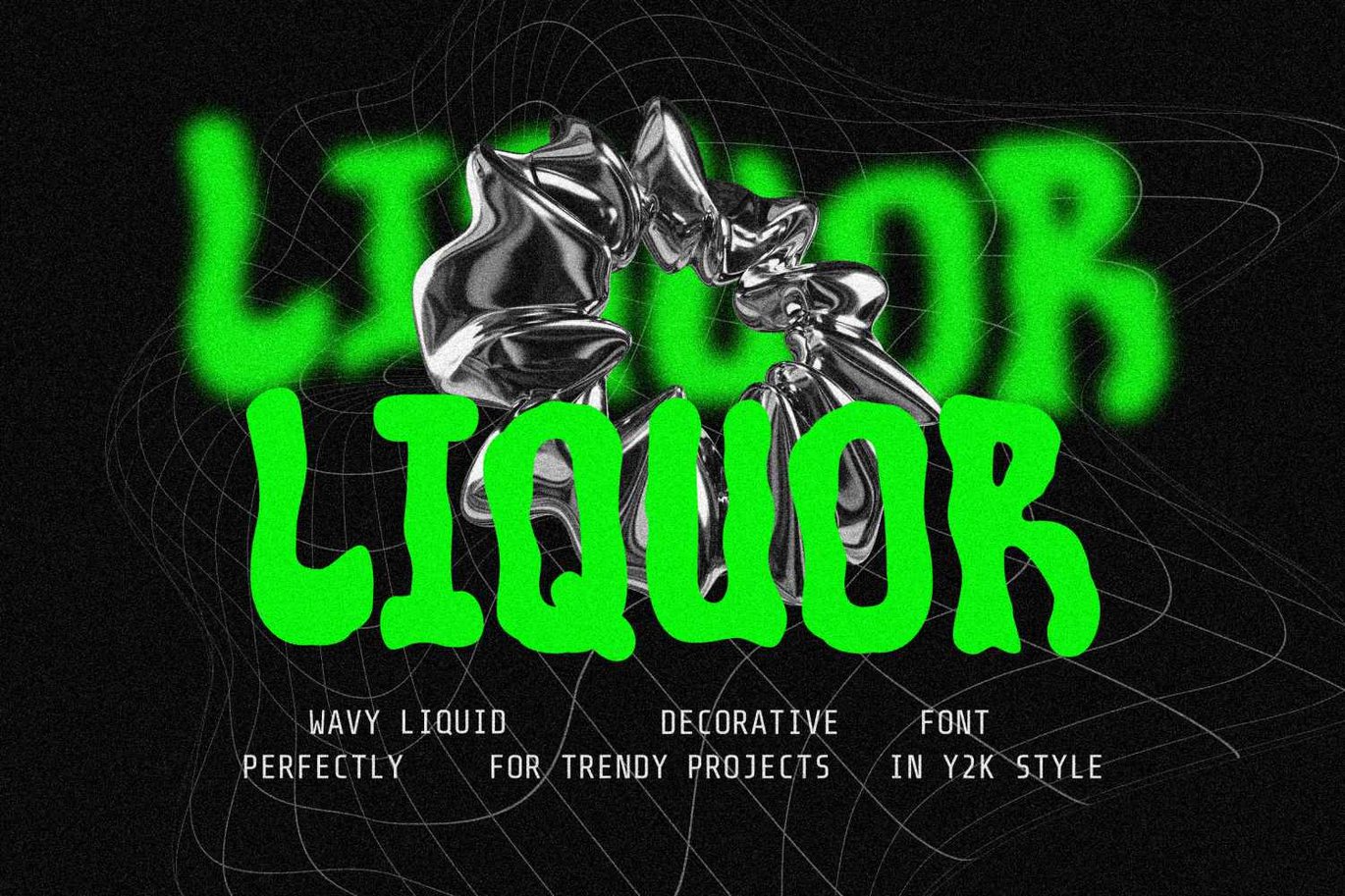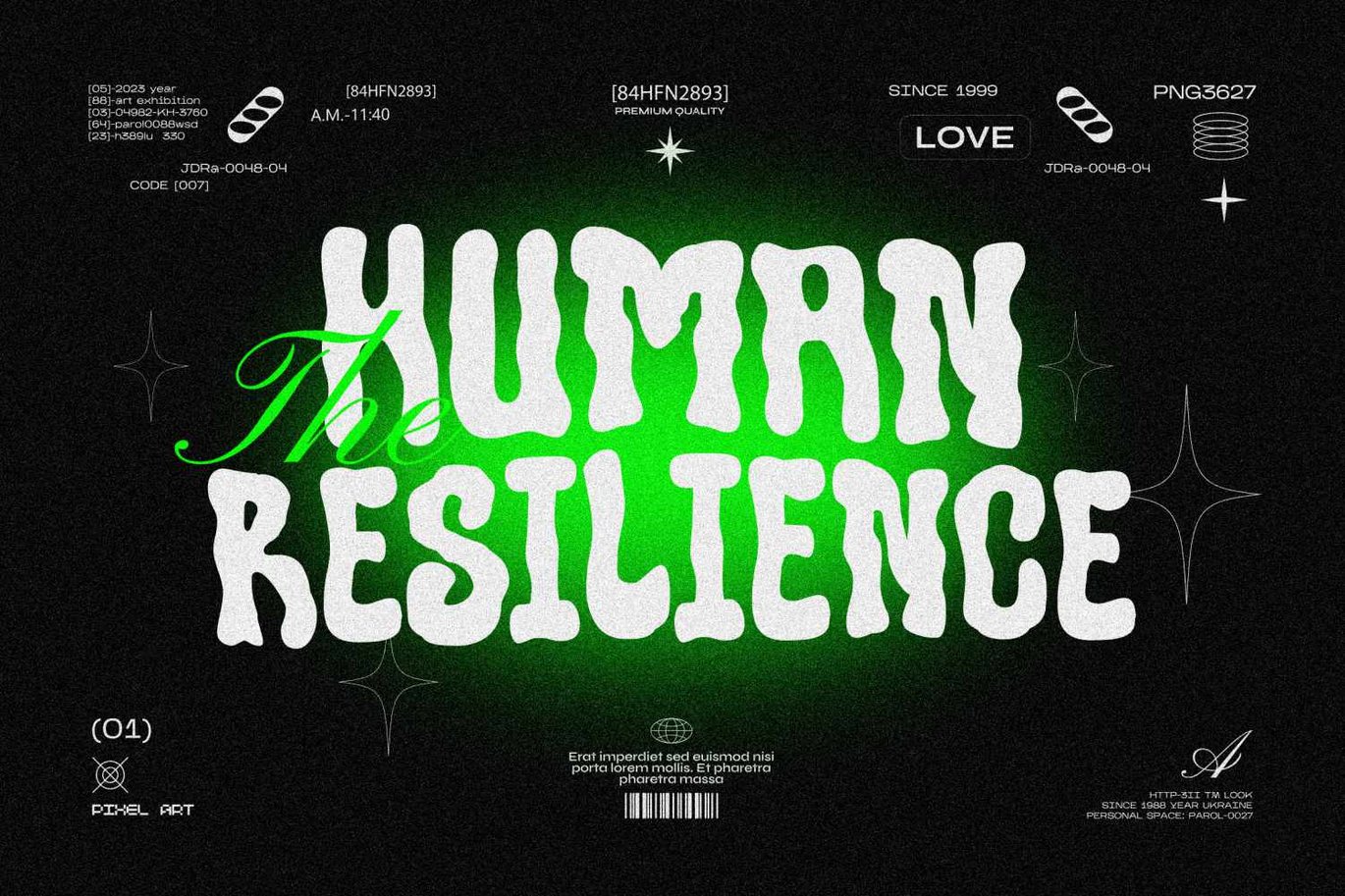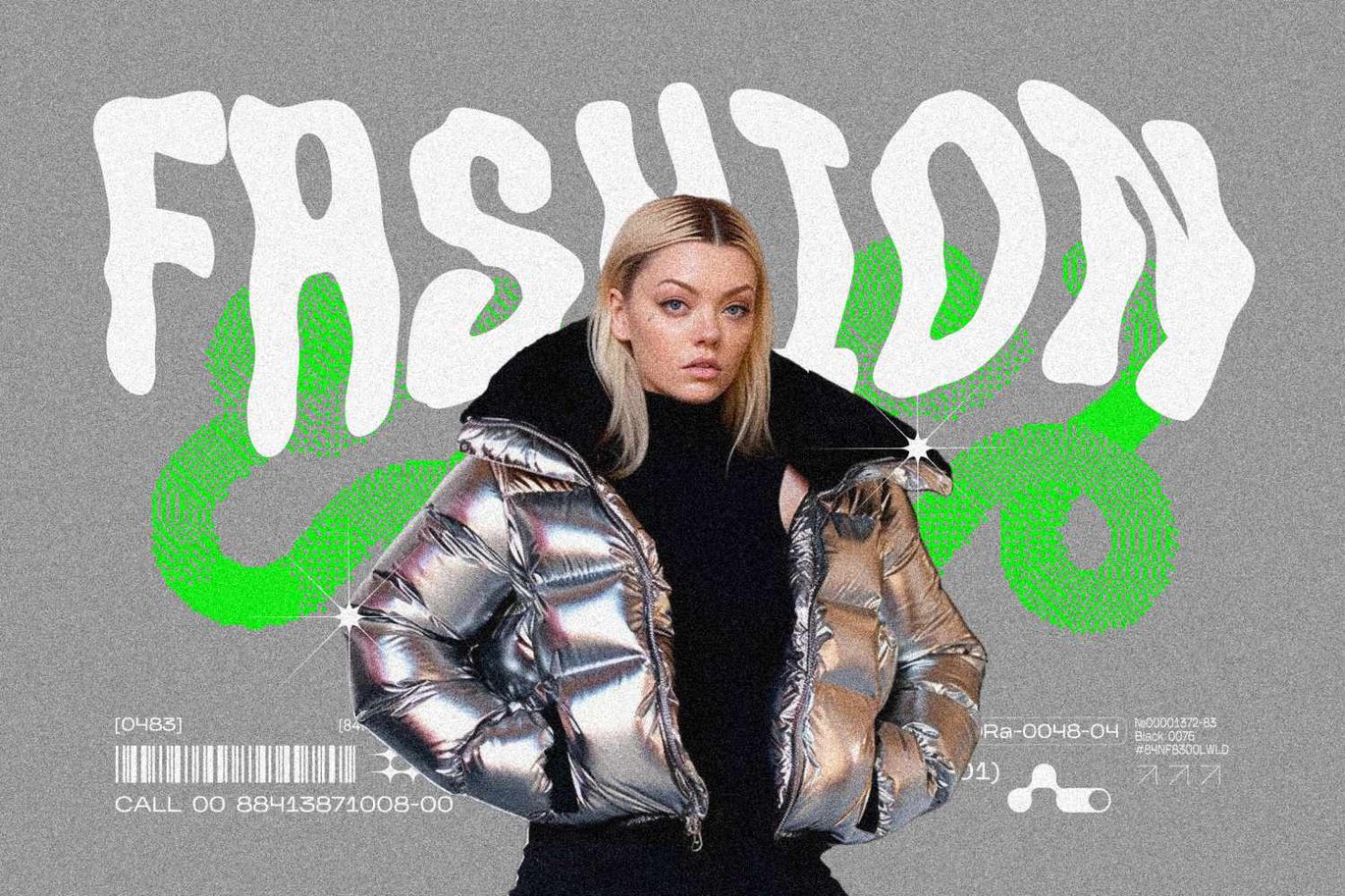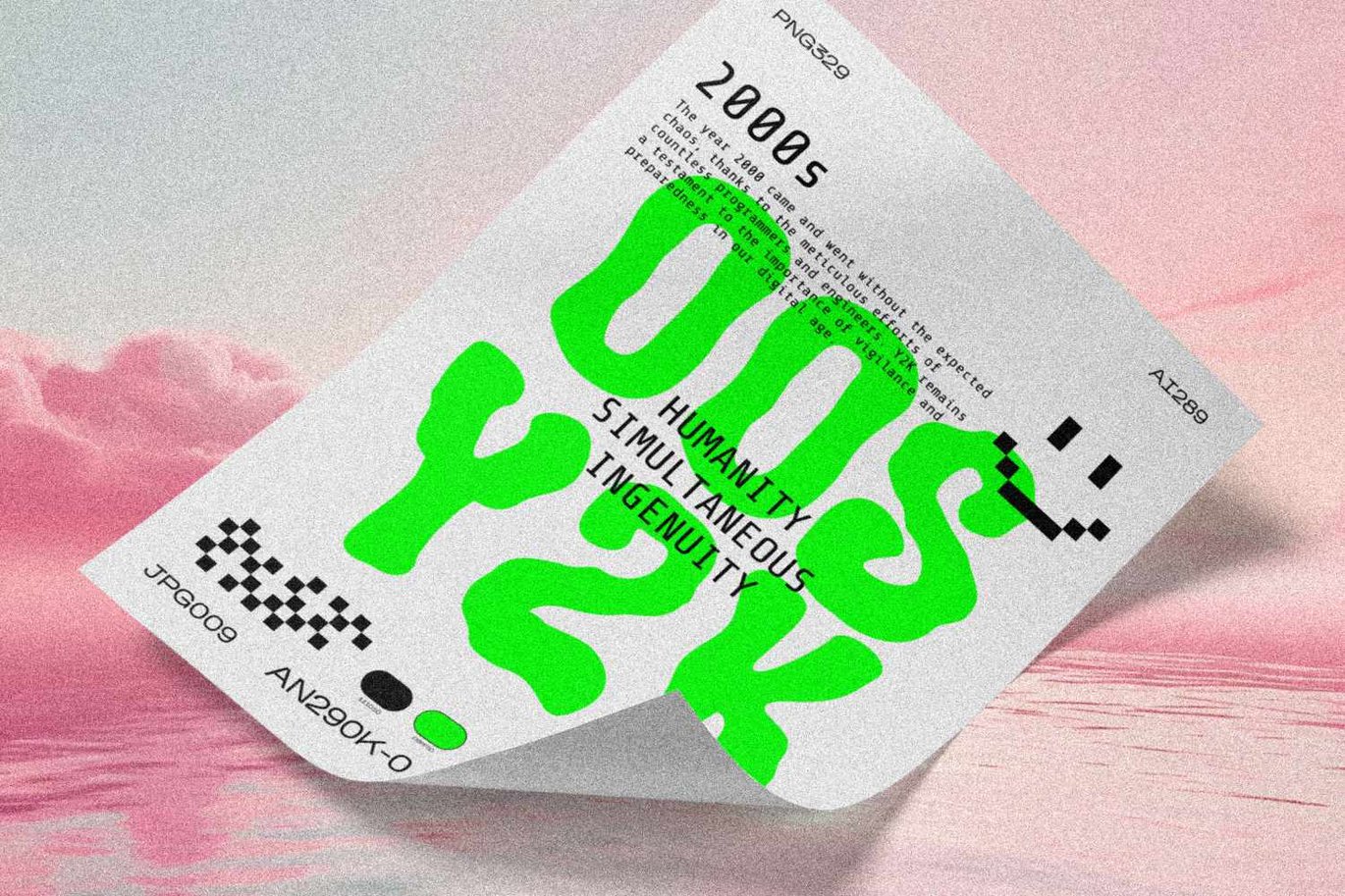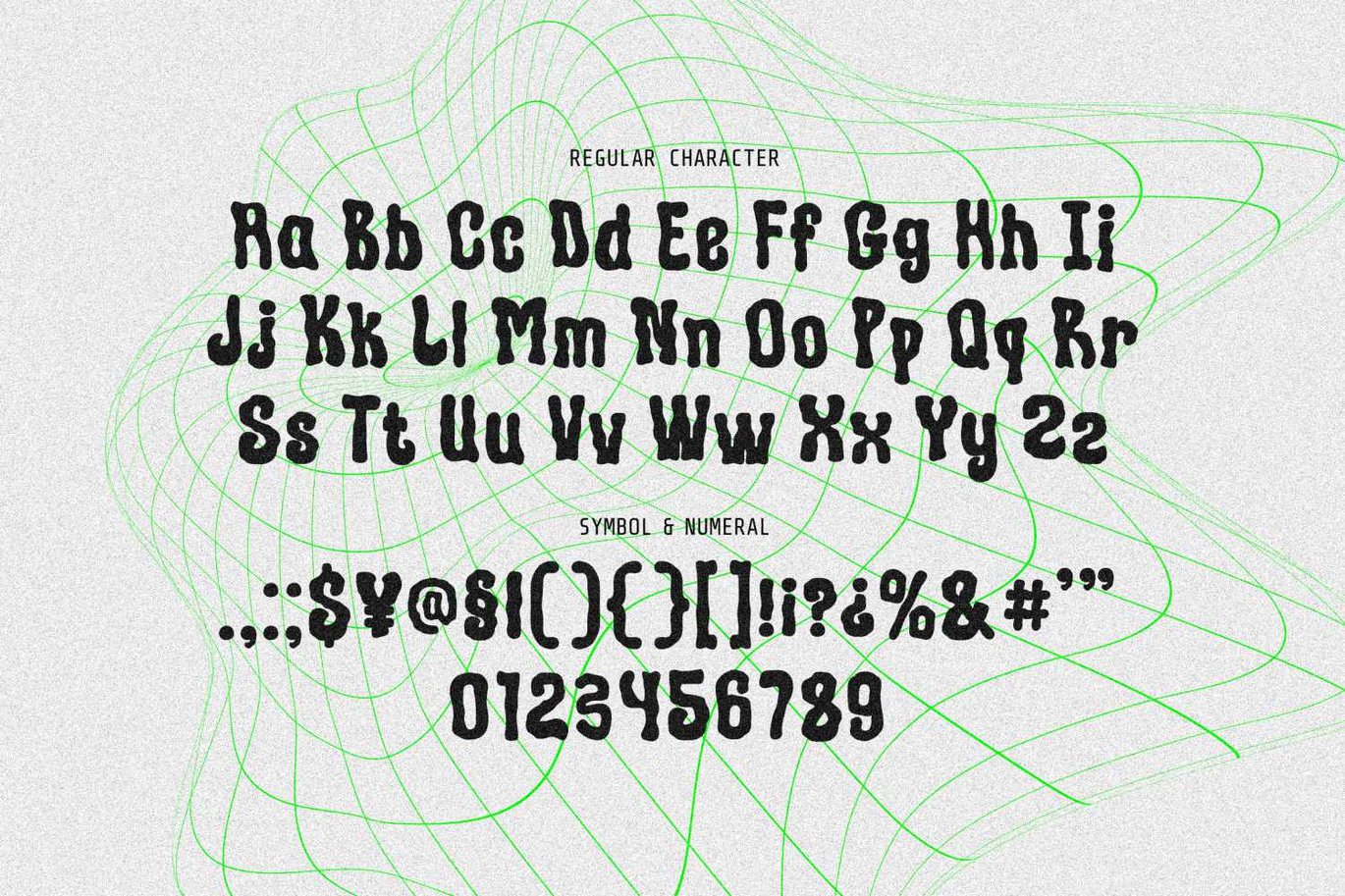
Liquor – Wavy Liquid Font
Liquor is a trippy wavy liquid decorative font and chunky with a lot of alternates and ligatures, which works perfectly for bold titles, festival posters, as a graphic element for bright T-shirt or hoodies, or even backgrounds!
It has styles for each letter that fit together in a grid system (like tetris) so you can have a custom liquid blob type that is unique every time. This is perfect for designers who are looking to add a psychedelic acid graphics contemporary hand-done touch to their projects.